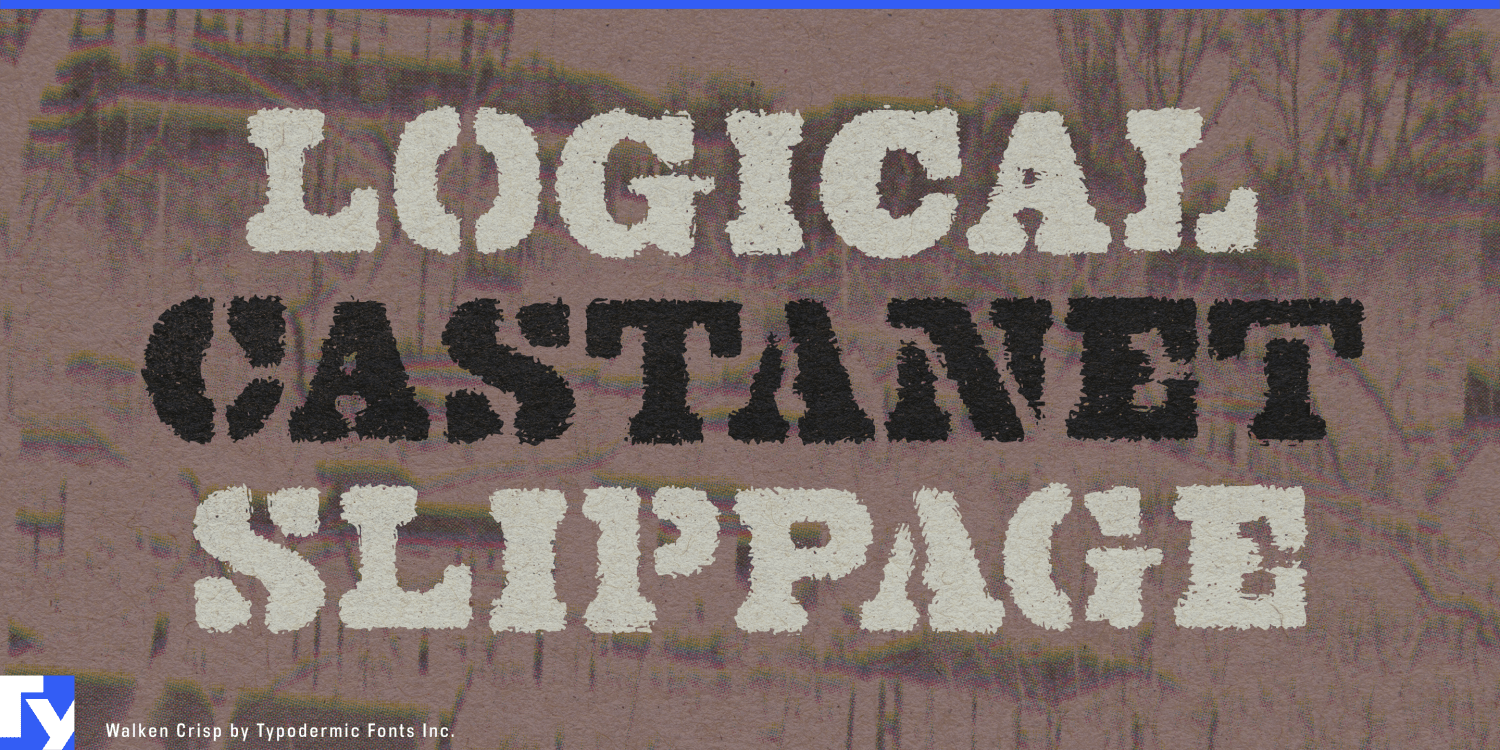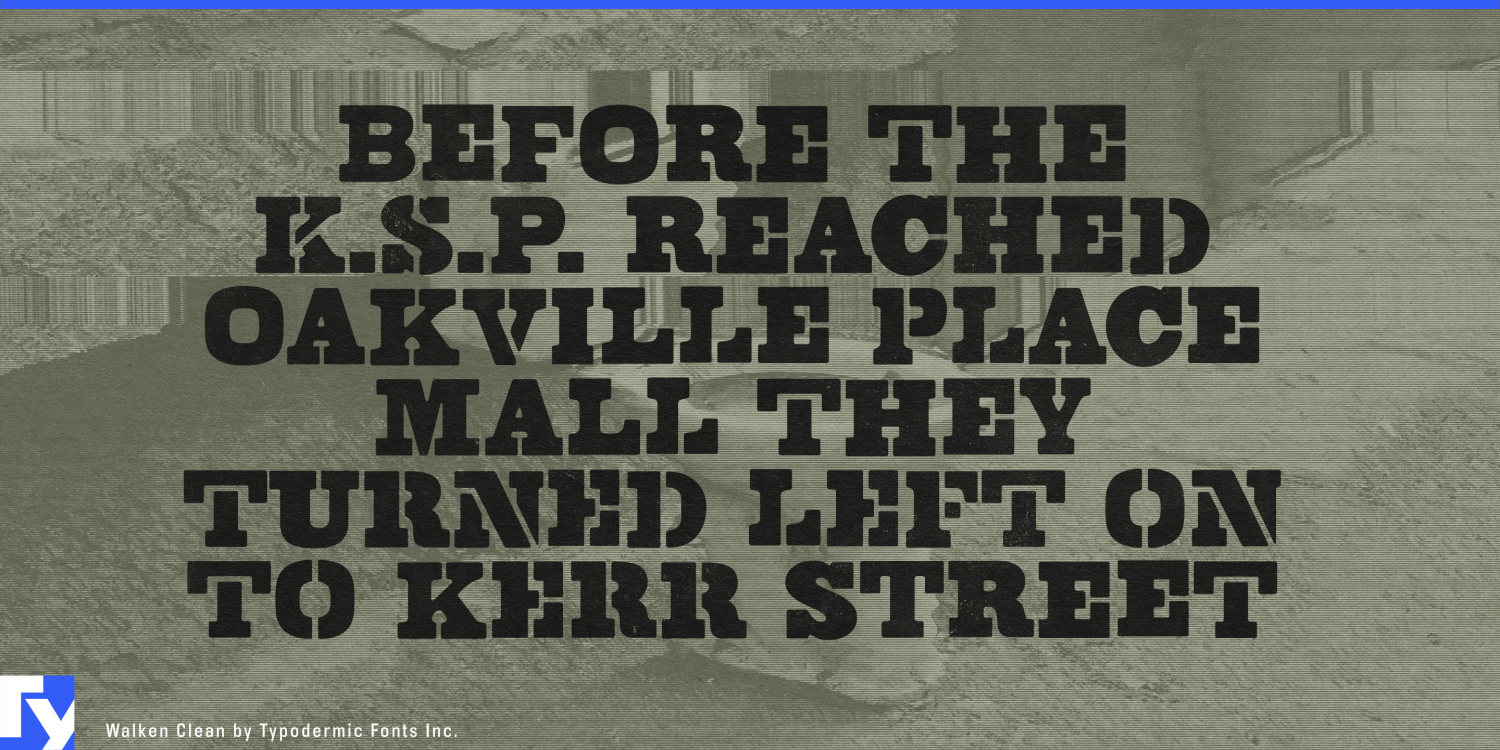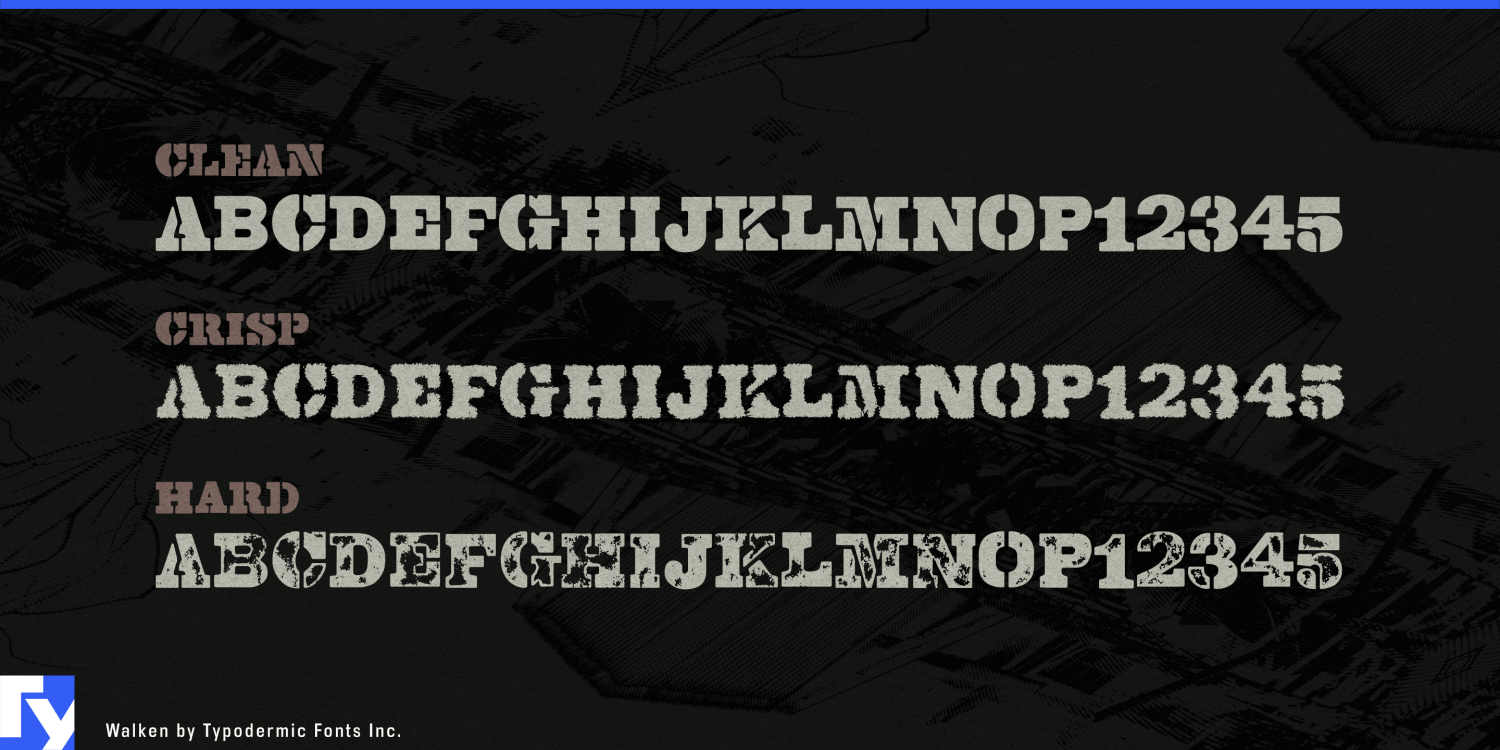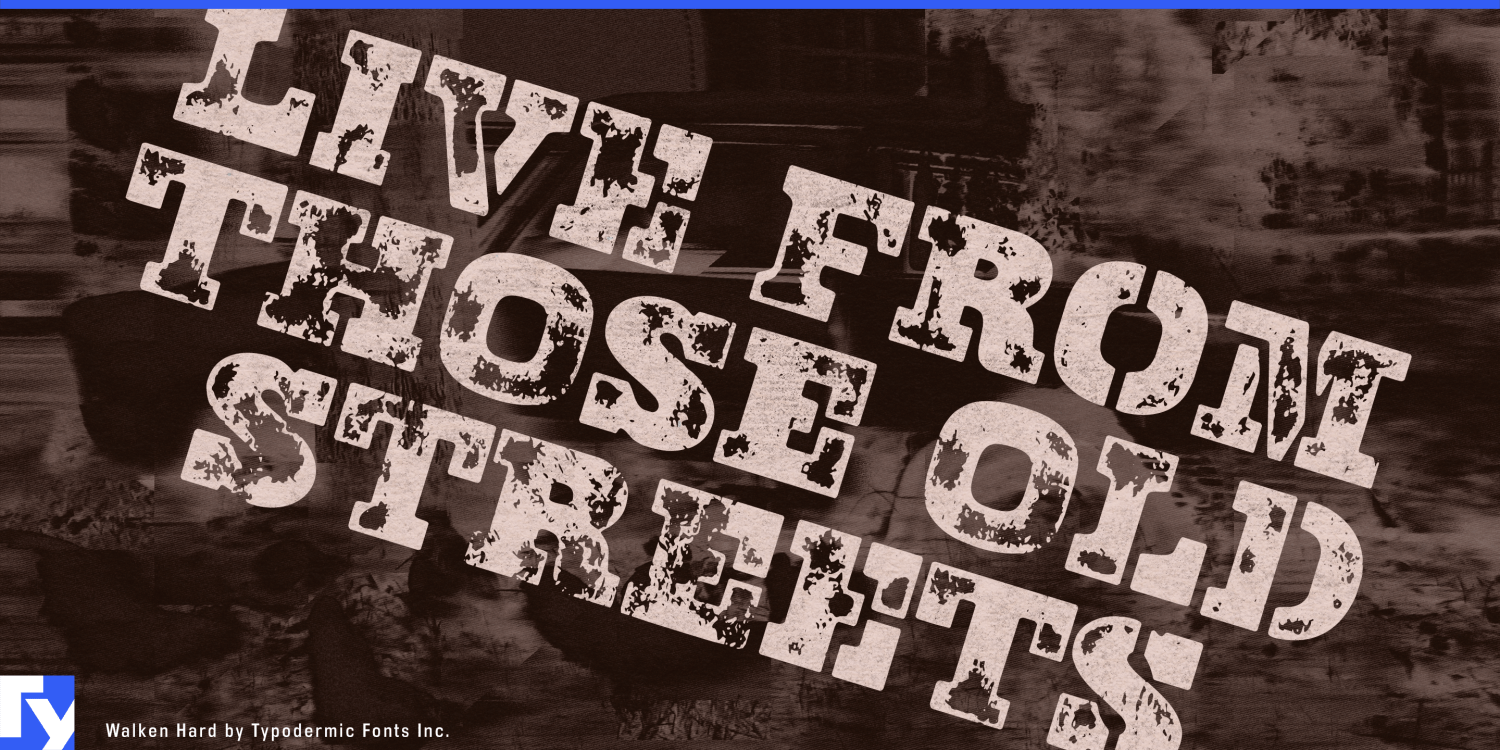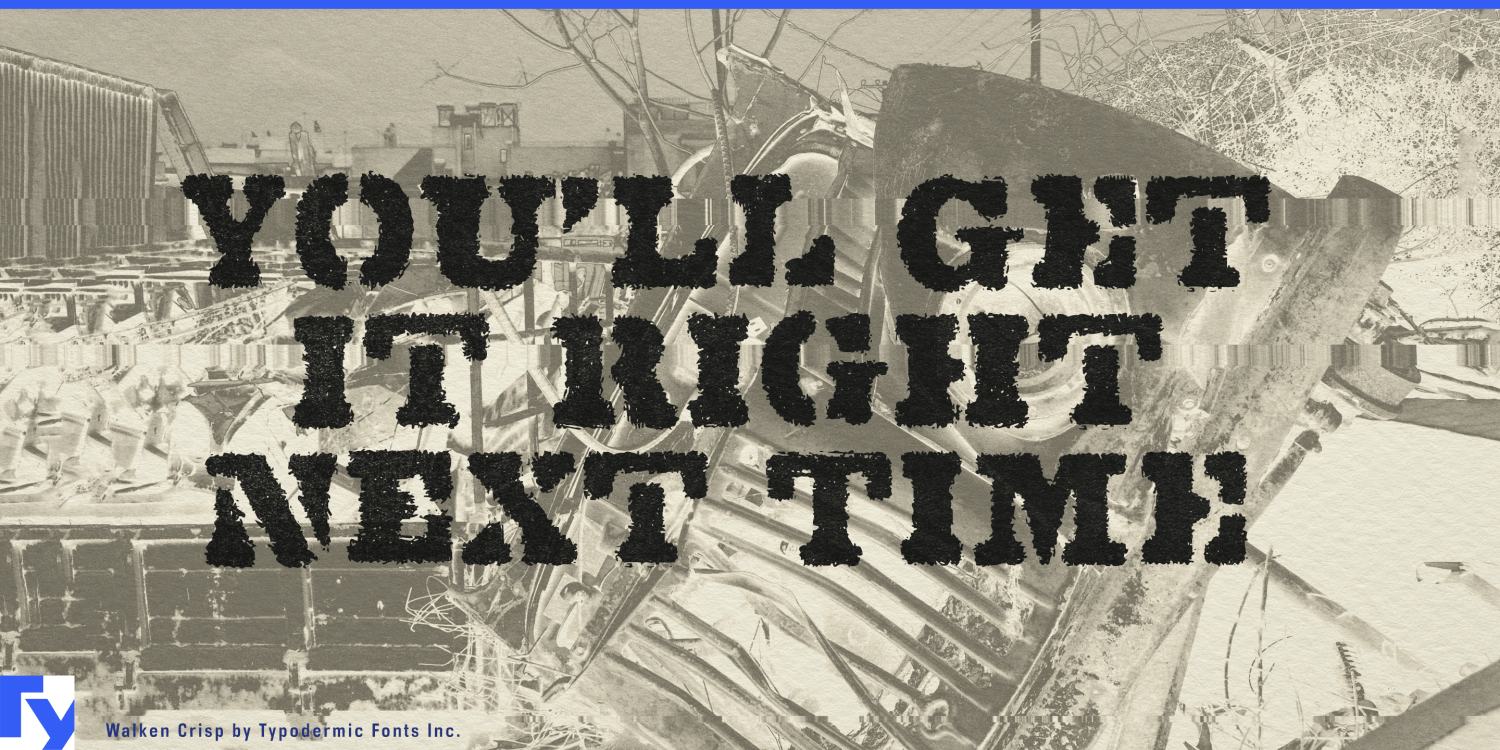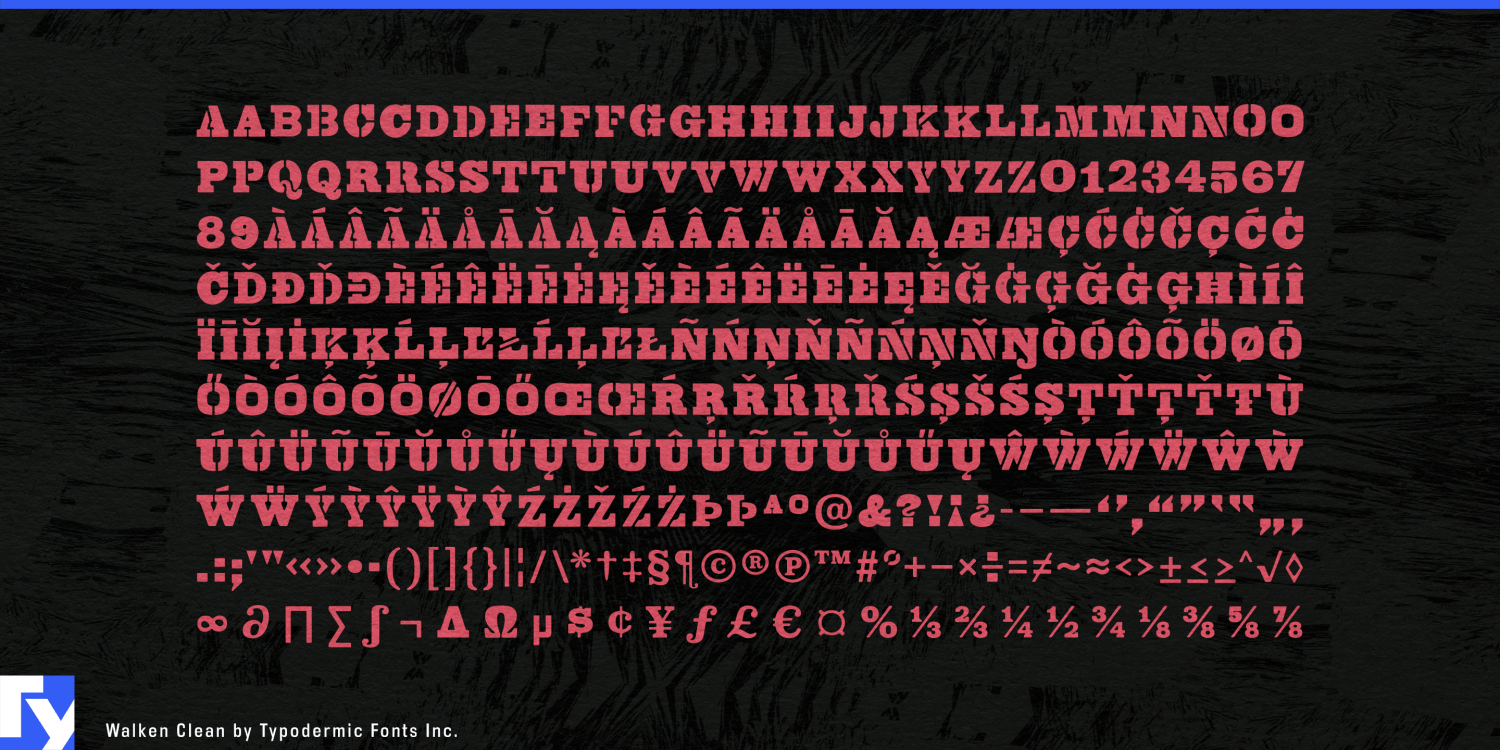
About Walken
Walken is a typographic powerhouse. This commanding slab serif demands attention with its robust letterforms and sturdy serifs, ready to make your message impossible to ignore. But Walken’s strength lies not only in its muscular build; it’s…